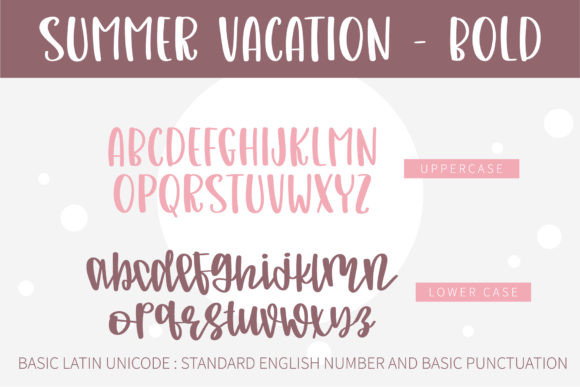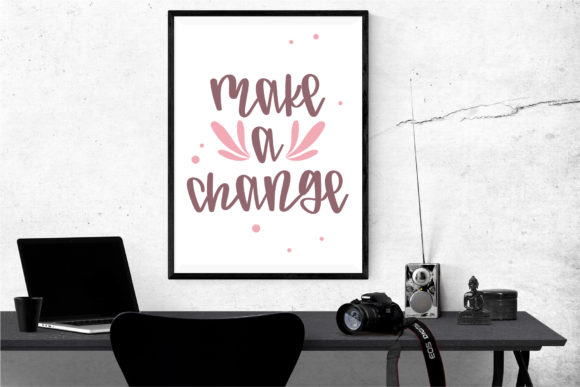
Summer Vacation Font
Summer Vacation is a gorgeous script font. Its natural and unique style makes it incredibly fitting to a large pool of designs. The only limit is your imagination!